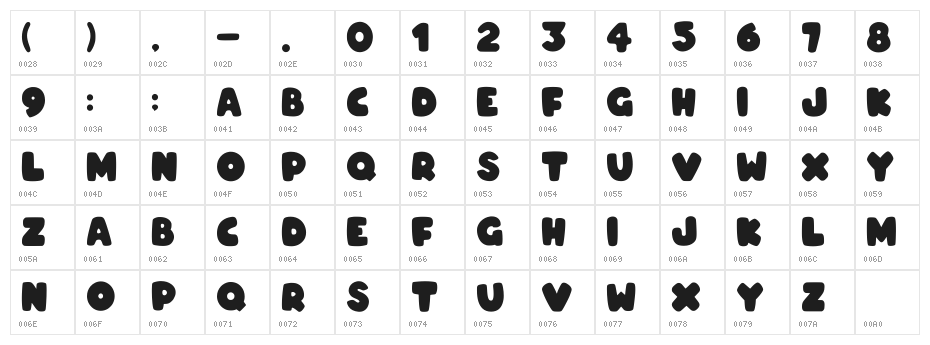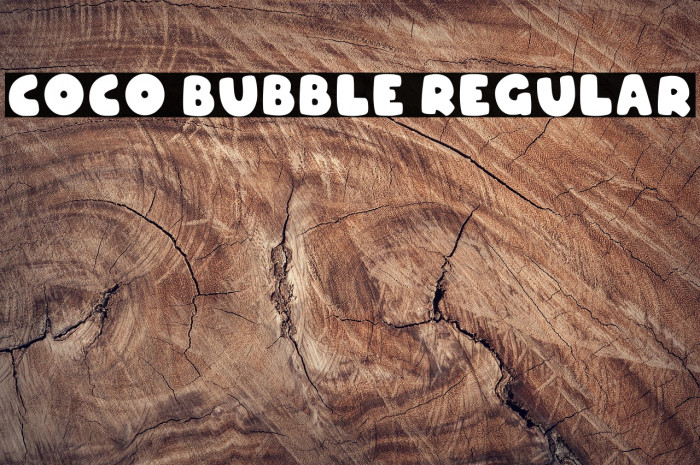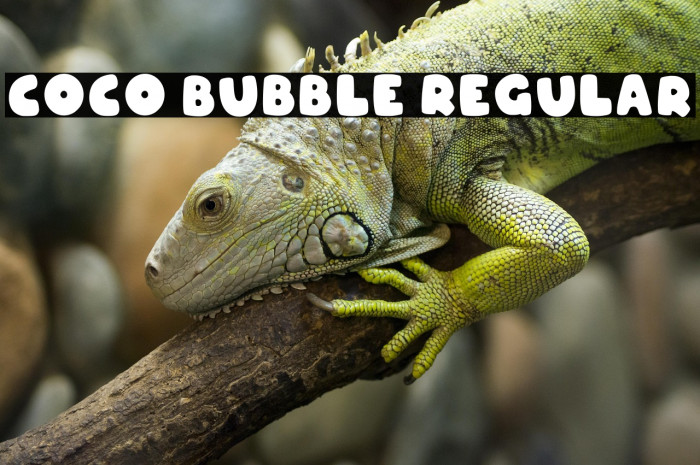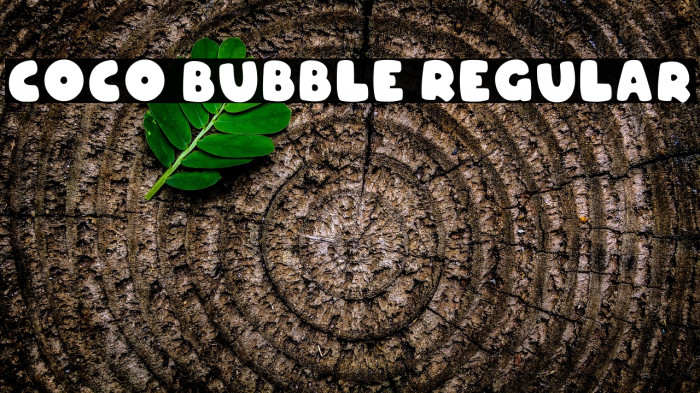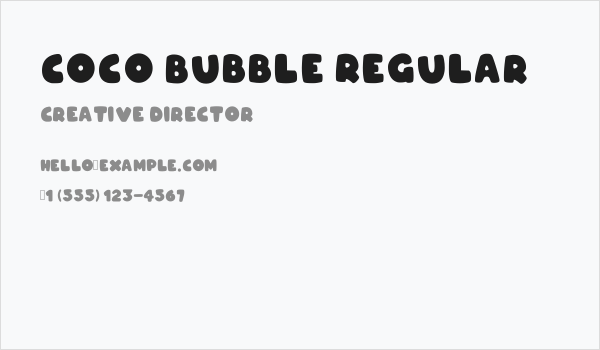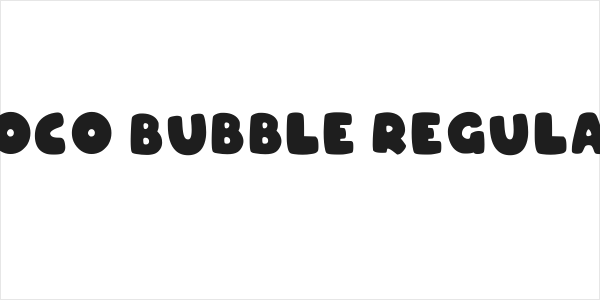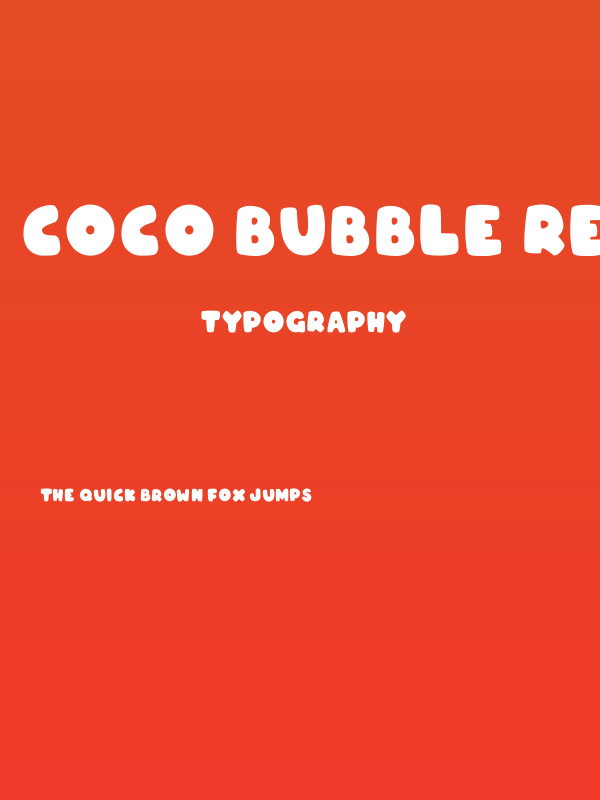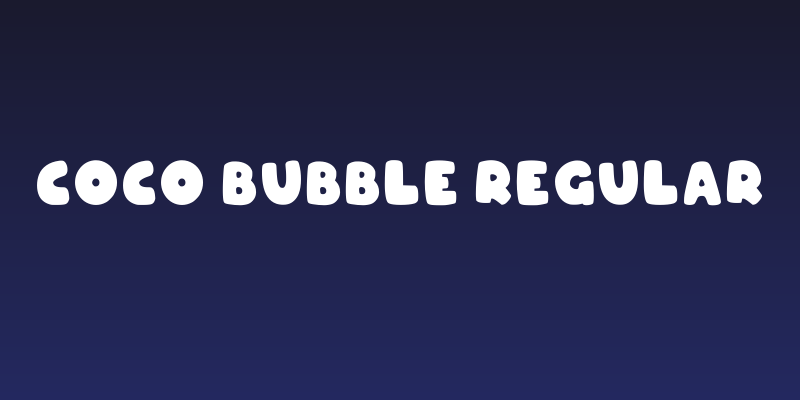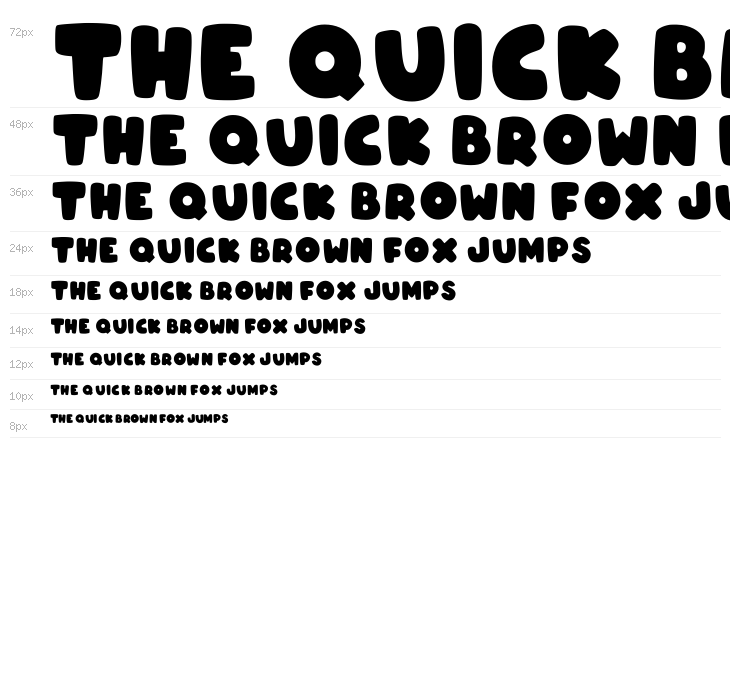
Coco Bubble Regular Font
Coco Bubble Regular Description
This playful and bold font features rounded, bubble-like characters that exude a sense of fun and whimsy. The letters are thick and uniform, with a consistent stroke width that gives them a solid and substantial appearance. The rounded edges and lack of sharp angles contribute to a friendly and approachable feel, making it ideal for designs aimed at a younger audience or for projects that require a lighthearted touch. The numbers and special characters maintain the same bubbly aesthetic, ensuring a cohesive look across all text elements.
| Proposed Projects | Ideal for children's books, playful branding, party invitations, and any design that requires a fun, whimsical touch. |